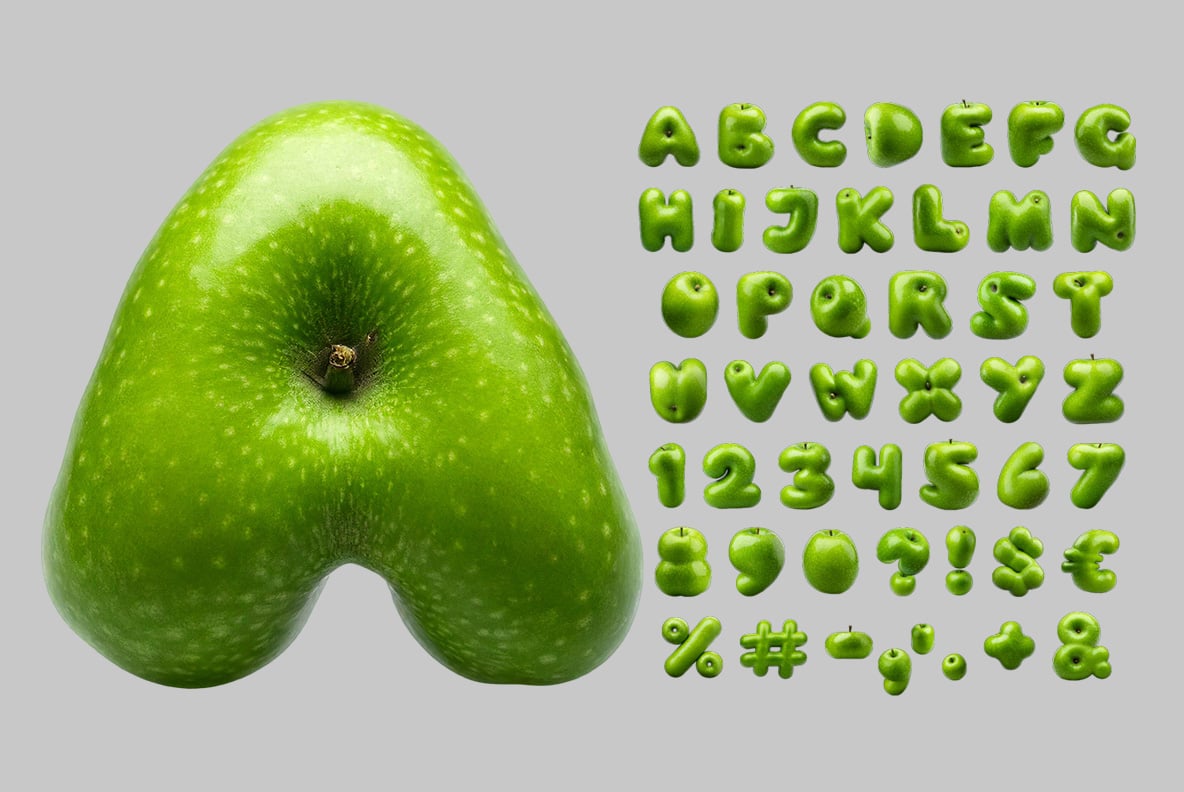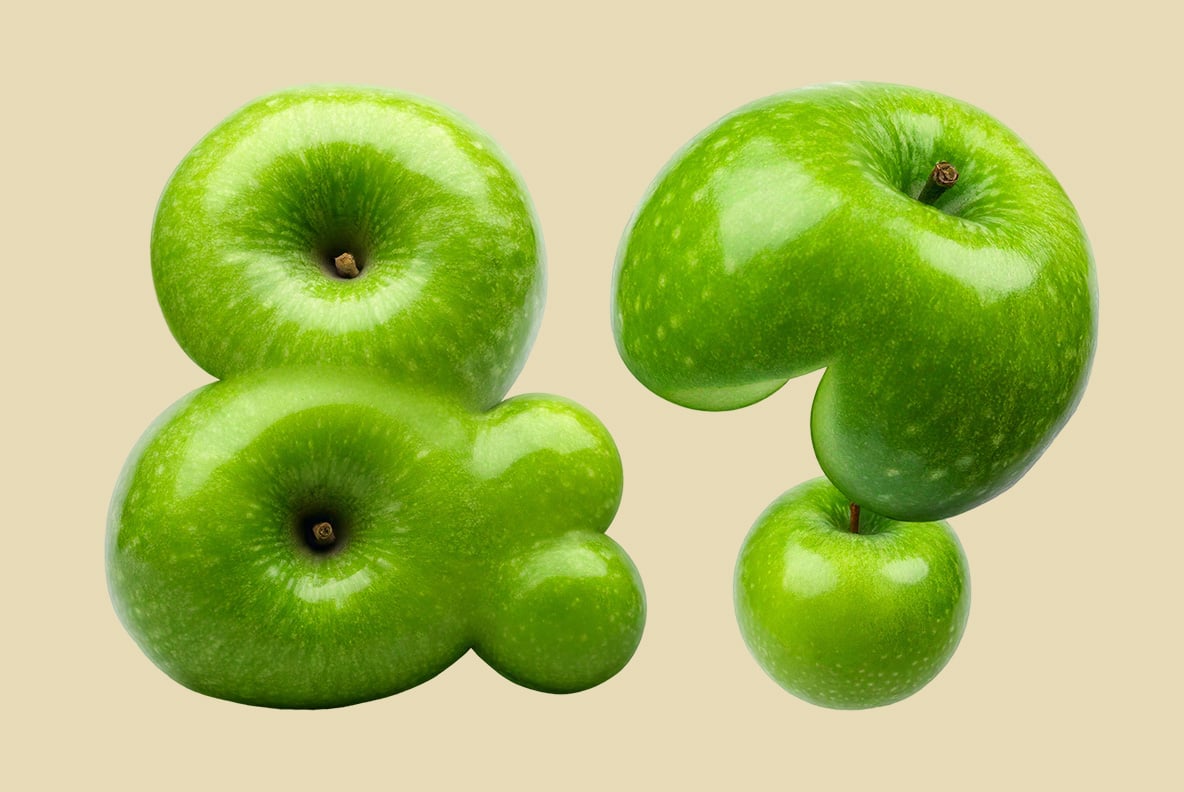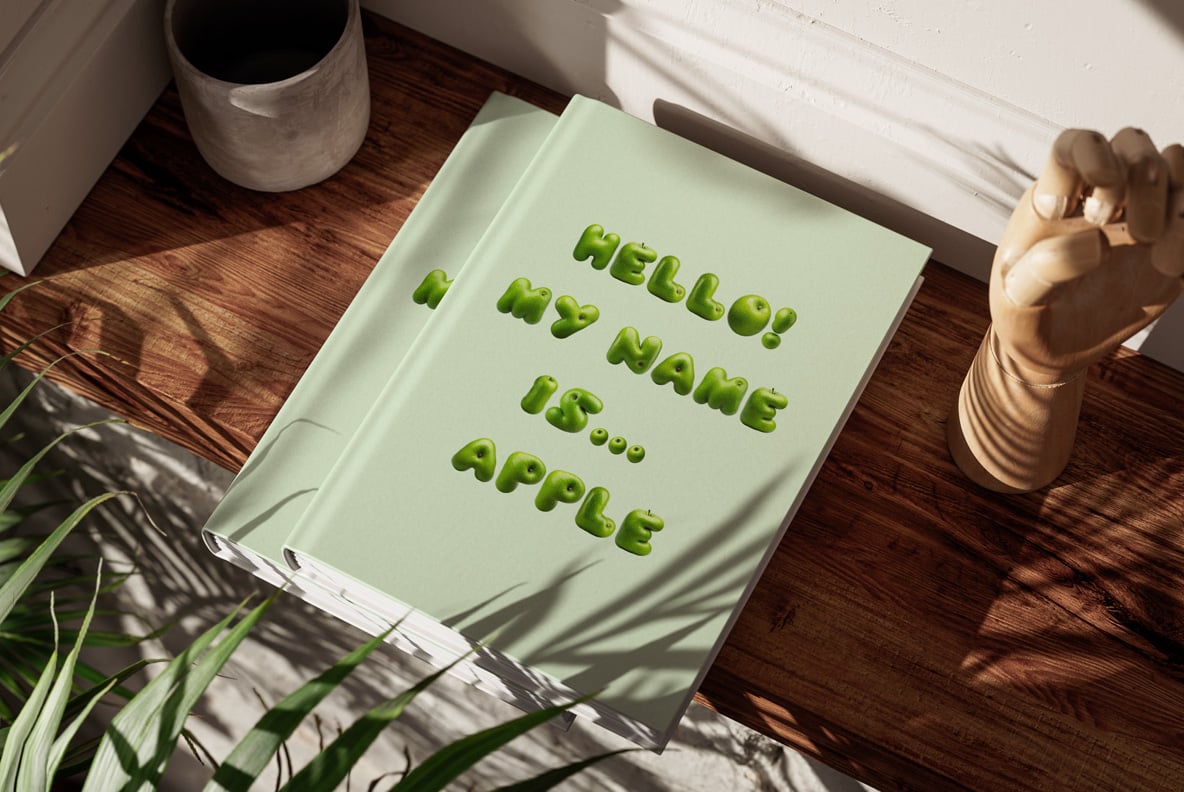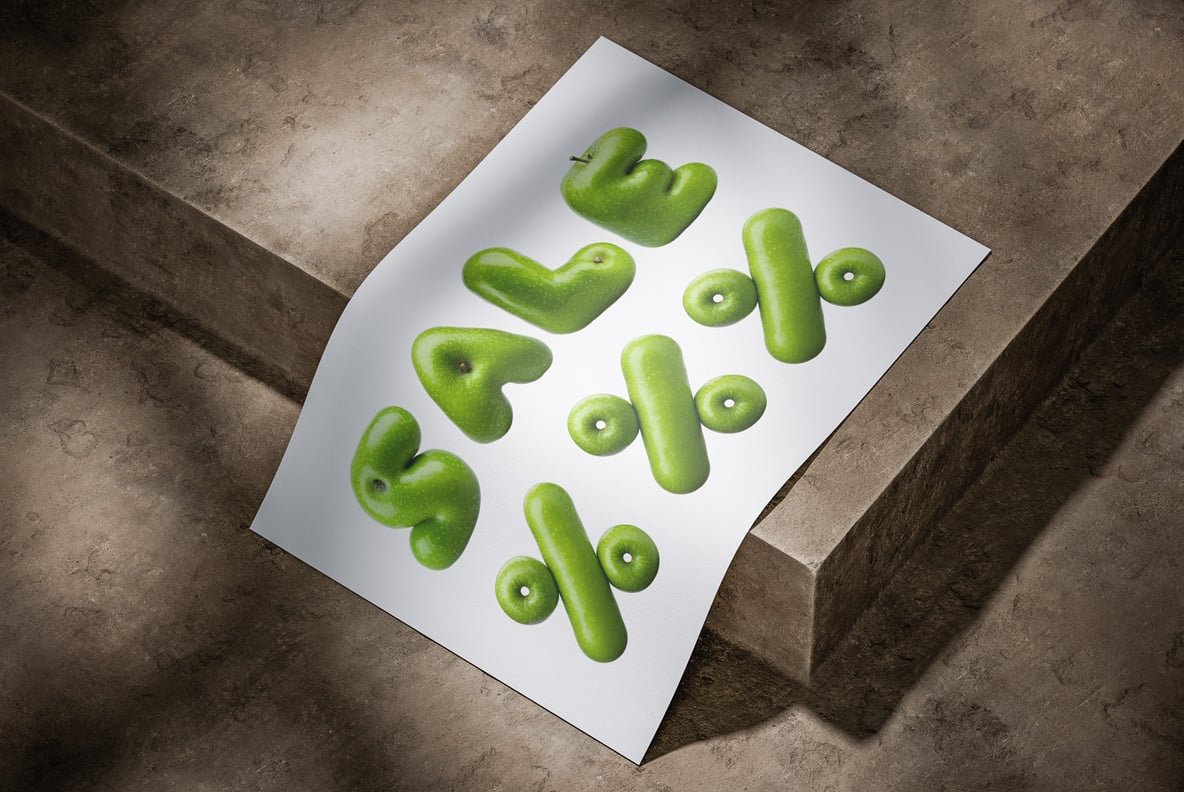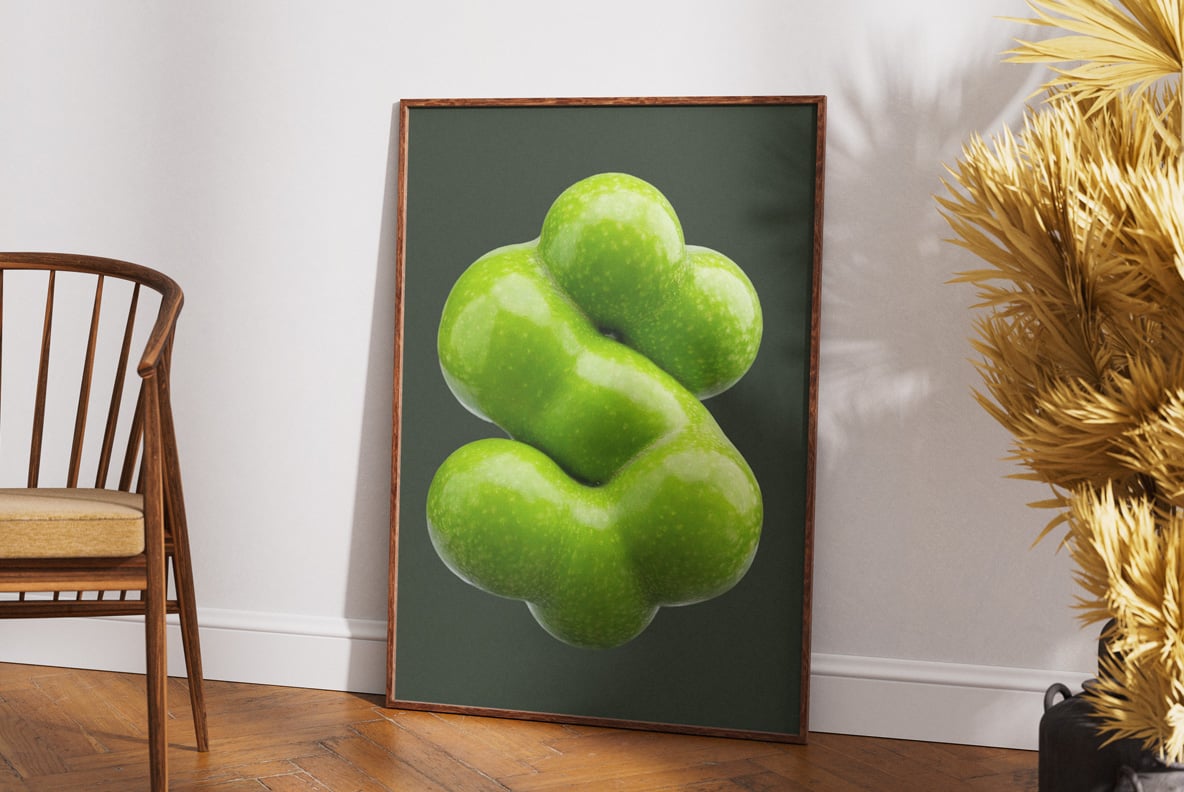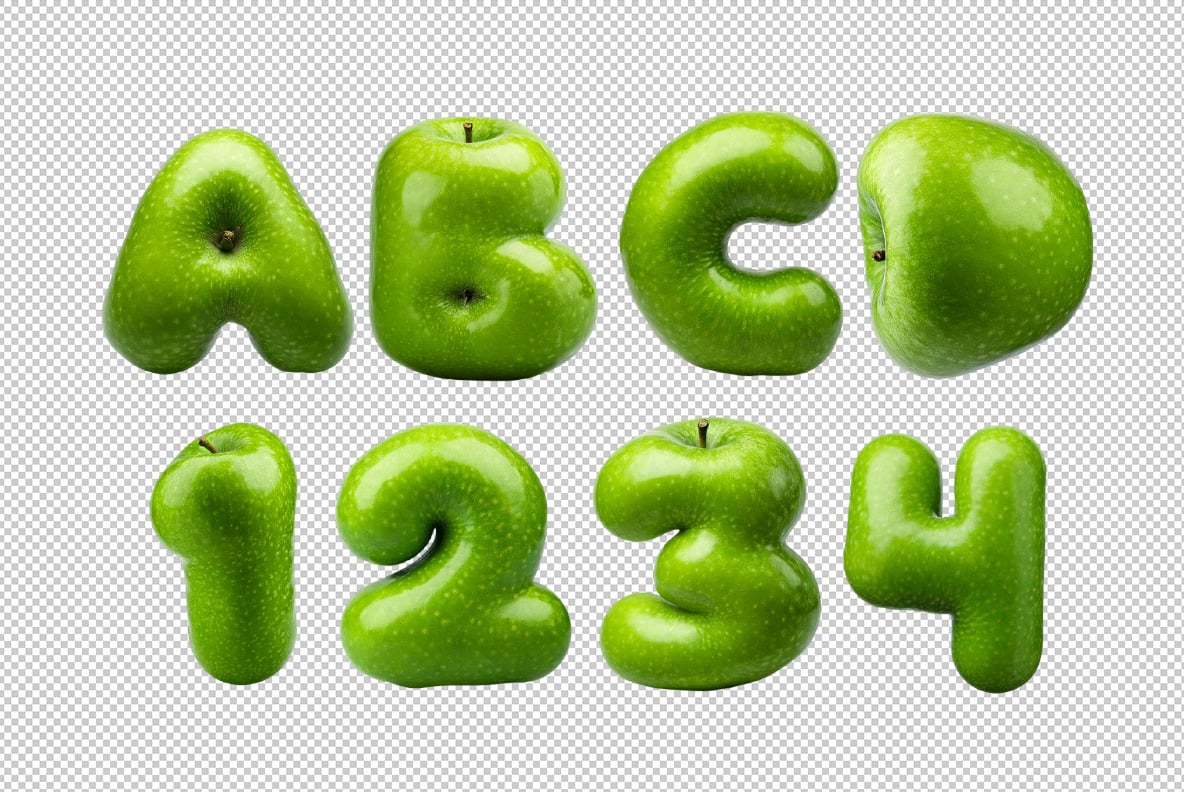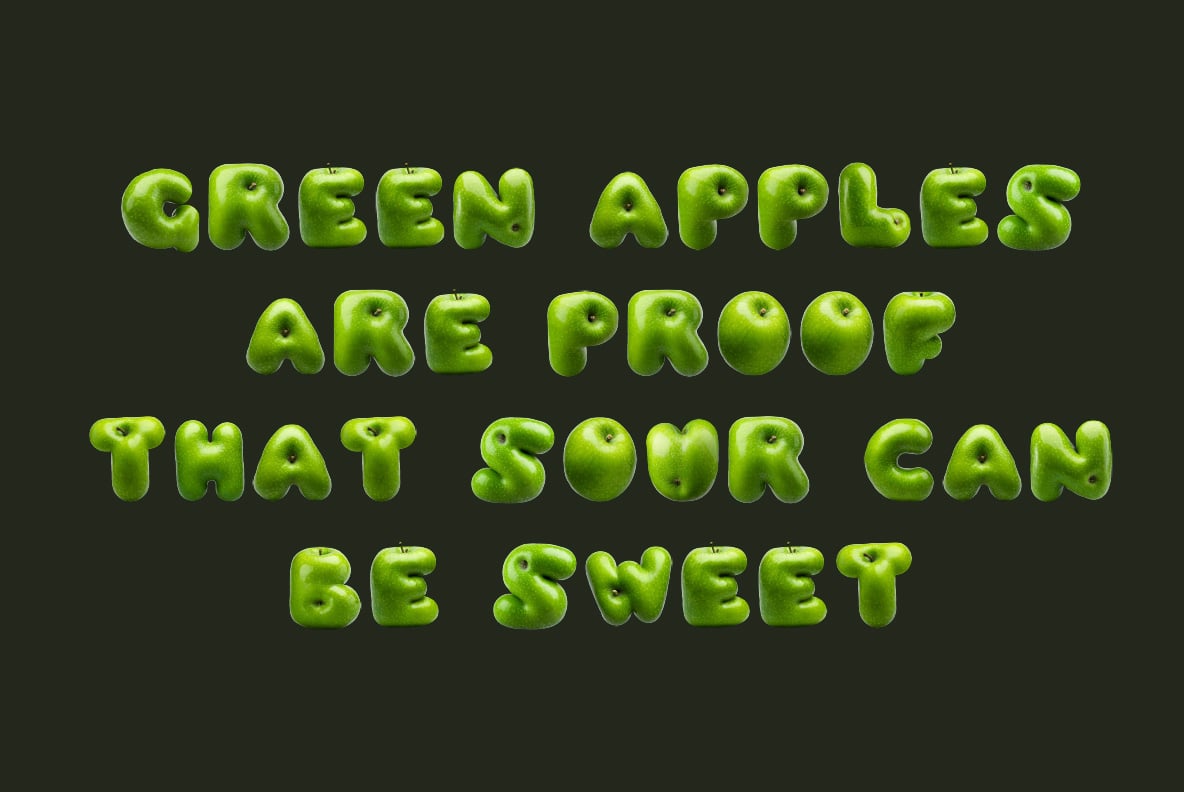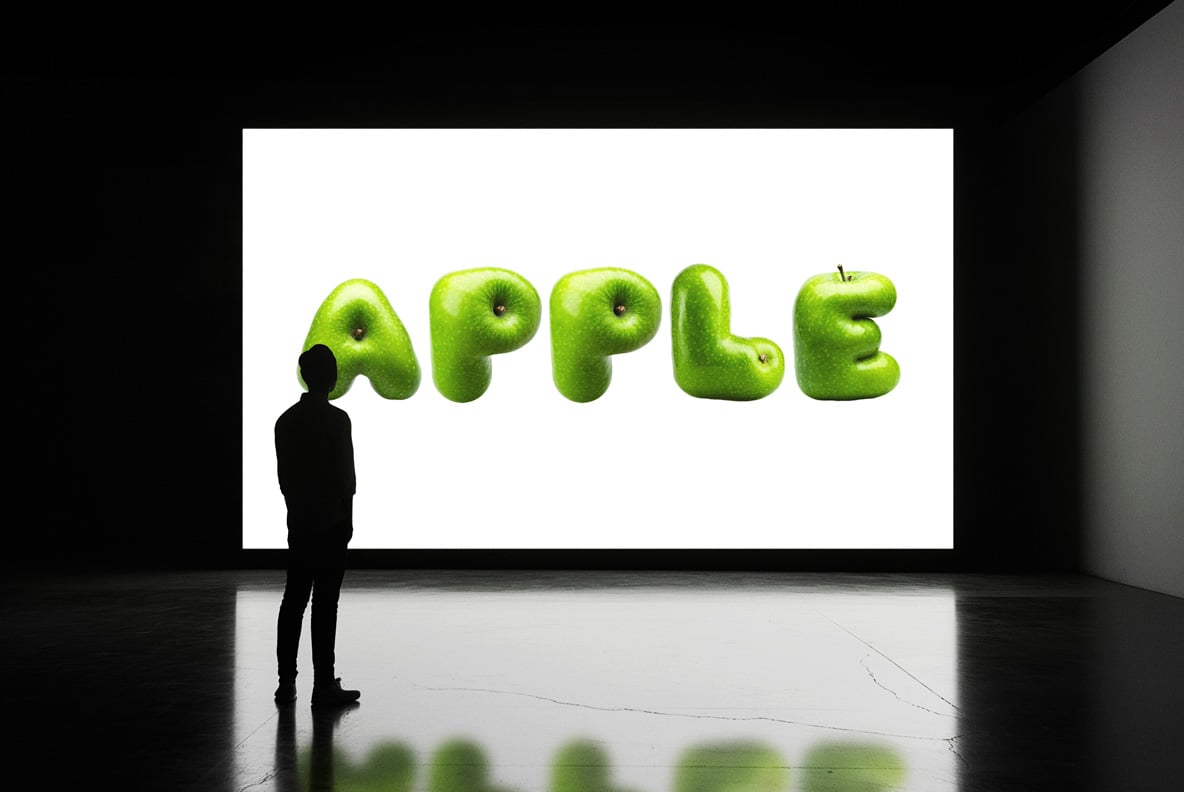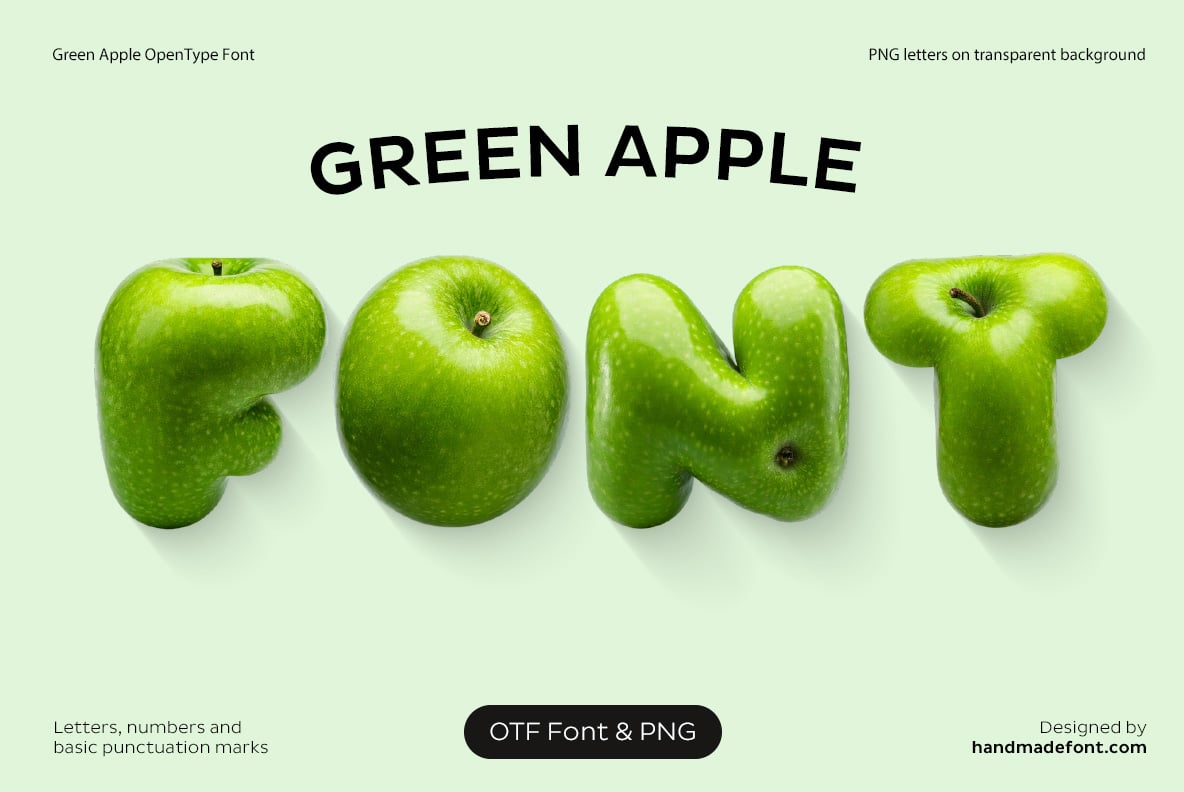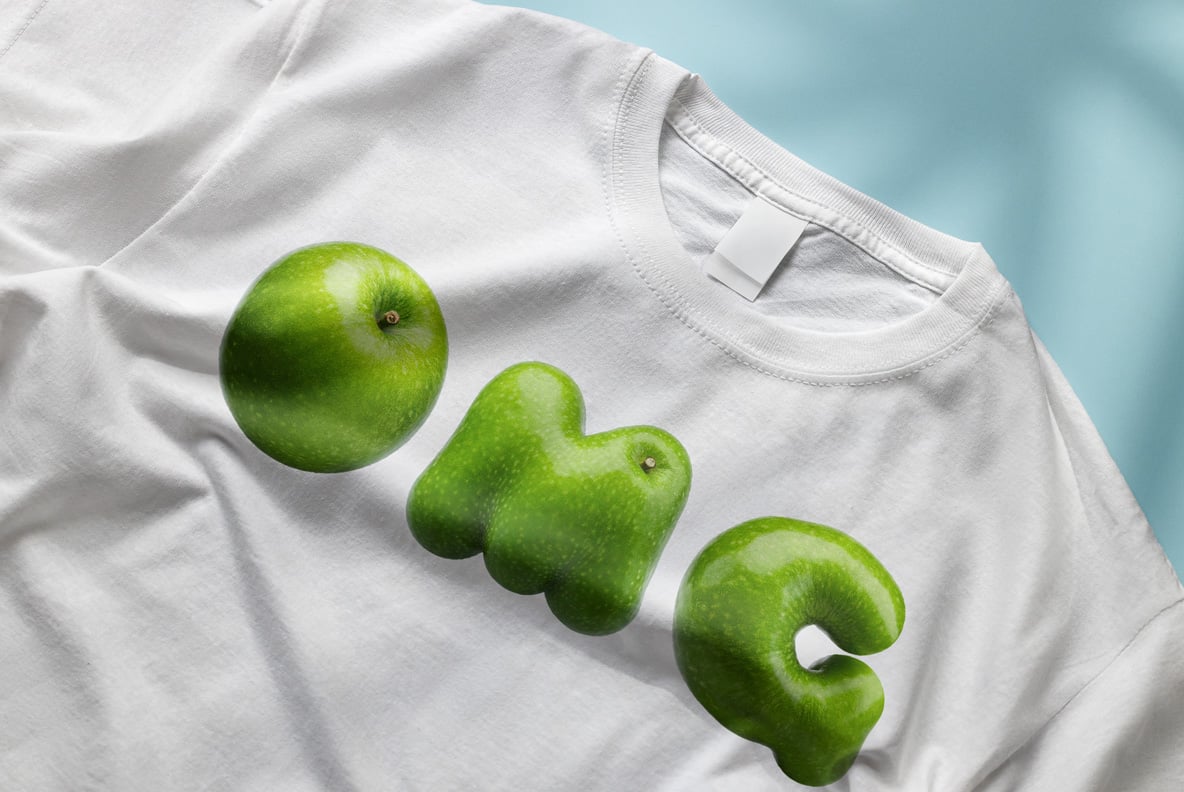
Green Apple Font
The Green Apple Font is a fresh and playful typeface where each letter is creatively shaped like a luscious green apple. Perfect for nature-inspired designs, food-related projects, or playful typography, this font adds a unique, organic touch to your creative work. With its vibrant green hues and realistic apple textures, it’s ideal for logos, posters, packaging, and children’s designs. This font captures the essence of freshness and health, making it perfect for projects that celebrate nature, sustainability, and wholesome living. Add a juicy twist to your designs with the delightful and imaginative charm of the Green Apple Font!
A high definition OpenType Font. Contains uppercase characters, numerals and basic punctuation. (Draw height roughly 800 pixels). All letters and glyphs that comprises this font you can see on the preview.